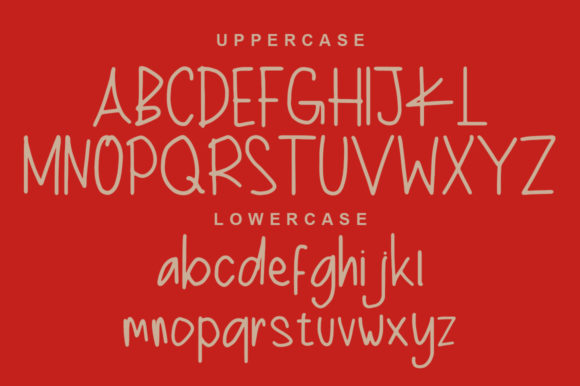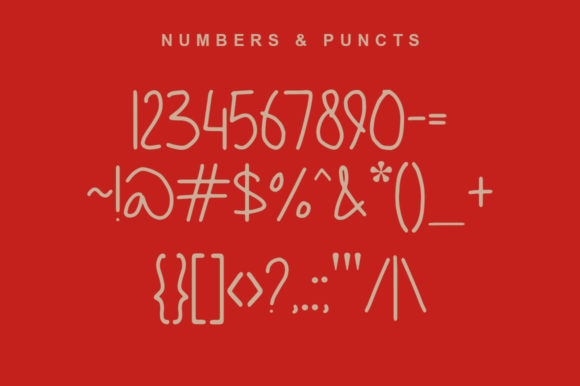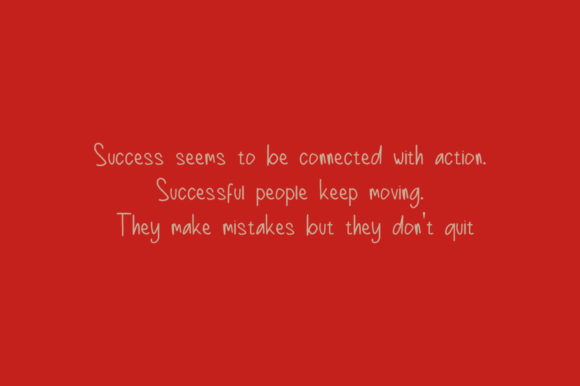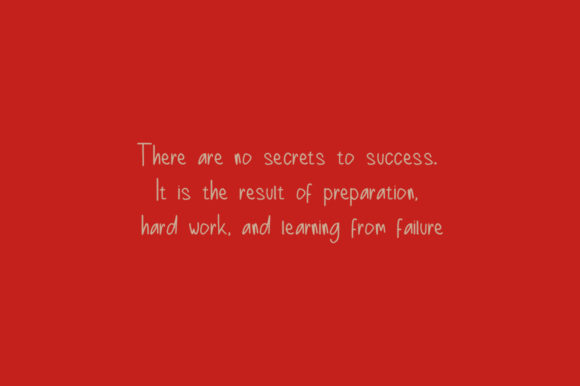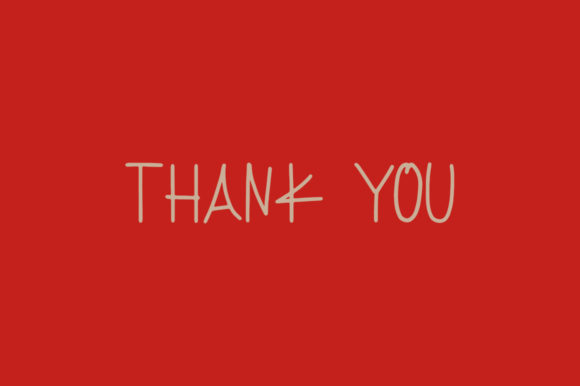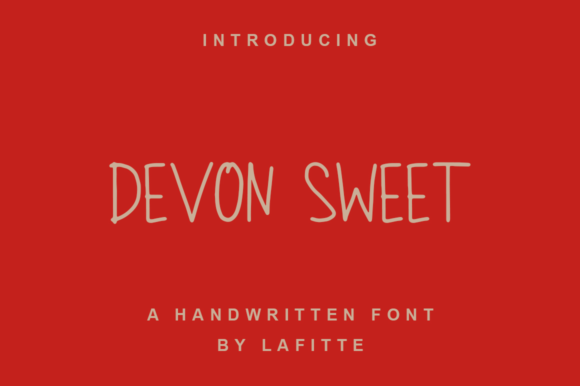
Introducing Devon Sweet Font: The Perfect Addition to Your Design Arsenal
Are you on the hunt for a font that exudes sweetness and sophistication? Look no further than Devon Sweet Font, a modern, sweet, and thin lettered handwritten font that’s perfect for a variety of design projects. In this article, we’ll dive into the world of Devon Sweet Font, exploring its features, uses, and benefits for designers and crafters alike.
What is Devon Sweet Font?
Devon Sweet Font is a beautiful, handcrafted font that’s designed to add a touch of elegance and whimsy to your designs. With its thin, delicate letters and sweet flair, this font is perfect for creating stunning branding, product packaging, invitations, quotes, t-shirts, labels, posters, and logos.
Key Features of Devon Sweet Font
So, what makes Devon Sweet Font so special? Here are just a few of its key features:
- Modern and Sweet Design: Devon Sweet Font boasts a modern, sweet design that’s perfect for creating visually appealing designs that stand out from the crowd.
- Thin Lettered Handwritten Font: The font’s thin, delicate letters give it a light and airy feel that’s perfect for adding a touch of elegance to your designs.
- Handcrafted with Love: Devon Sweet Font is carefully crafted with love and attention to detail, ensuring that every letter and curve is perfect.
- Versatile and Flexible: This font is perfect for a wide range of design projects, from branding and packaging to invitations and posters.
Uses for Devon Sweet Font
So, what can you use Devon Sweet Font for? The possibilities are endless! Here are just a few ideas to get you started:
- Branding and Packaging: Use Devon Sweet Font to create stunning branding and packaging that sets your product apart from the competition.
- Invitations and Stationery: Add a touch of elegance to your invitations, stationery, and greeting cards with this beautiful font.
- T-Shirts and Merchandise: Create eye-catching t-shirts, mugs, and other merchandise with Devon Sweet Font.
- Posters and Flyers: Use this font to create stunning posters and flyers that grab attention and leave a lasting impression.
- Logos and Icons: Devon Sweet Font is perfect for creating unique and memorable logos and icons that represent your brand.
So, what are the benefits of using Devon Sweet Font for designers and crafters? Here are just a few:
- High-Quality Design: This font is designed to high standards, ensuring that your designs look professional and polished.
- Unique and Creative: This font allows you to add a unique and creative touch to your designs, setting you apart from the competition.
In conclusion, Devon Sweet Font is a beautiful, modern, sweet, and thin lettered handwritten font that’s perfect for designers and crafters alike. With its elegant design, versatility, and ease of use, this font is sure to become a staple in your design arsenal. Whether you’re creating branding, packaging, invitations, or merchandise, Devon Sweet Font is the perfect choice. So why wait? Download Devon Sweet Font today and start creating stunning designs that leave a lasting impression!